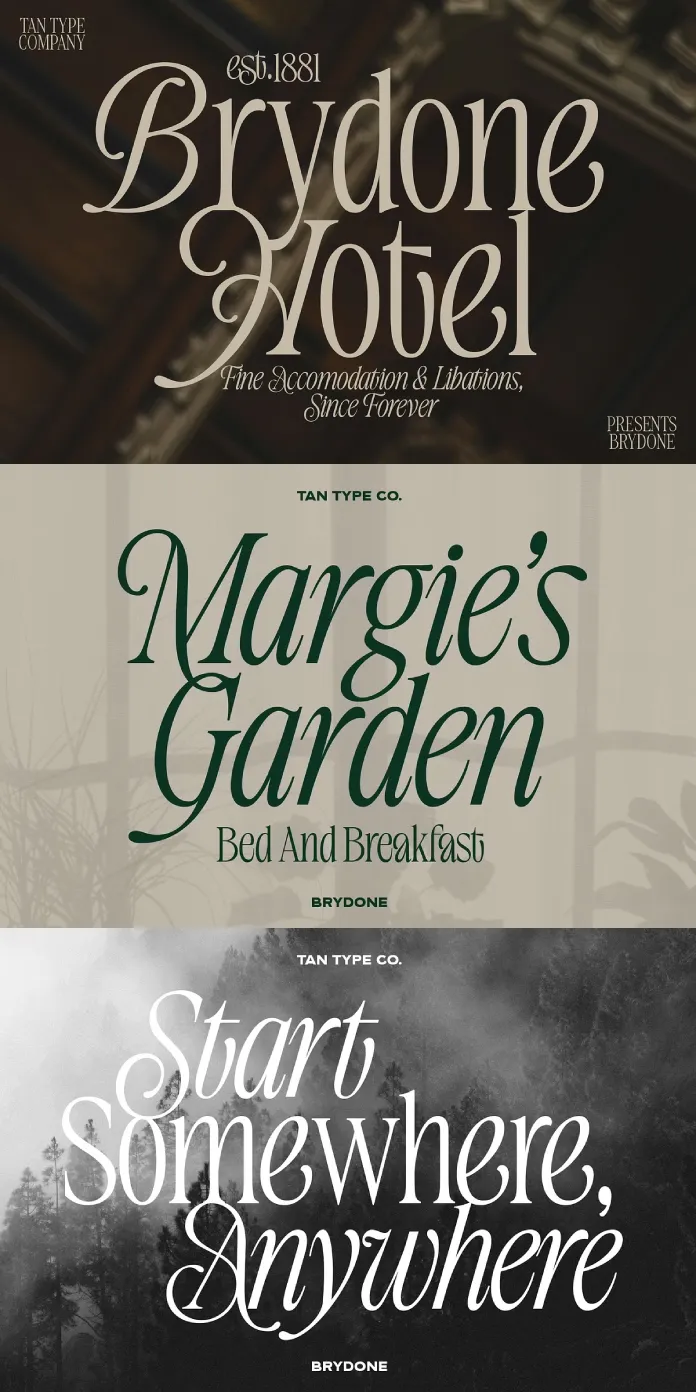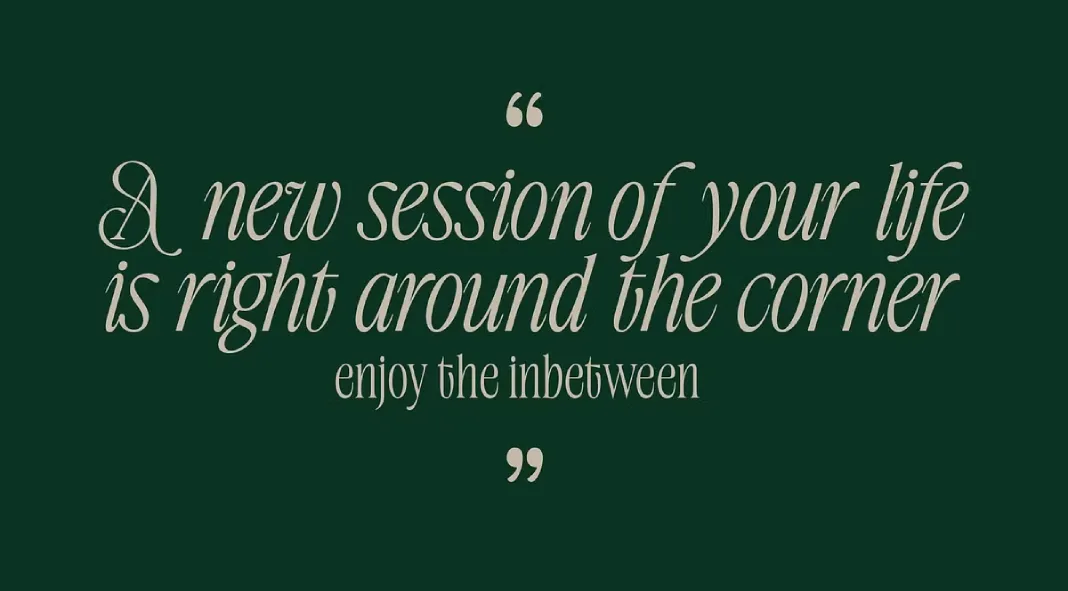
Brydone: The Serif Typeface That Redefines Charm and Elegance
When it comes to balancing timeless sophistication with modern appeal, the TAN Brydone font by TanType stands out. This well-designed serif typeface is a masterclass in blending tradition and contemporary design, delivering versatility and charm in equal measure.
A Typeface Rooted in Elegance
Brydone’s letterforms are steeped in classic serif traditions, but it avoid feeling outdated. The gently rounded edges soften its authoritative structure, giving it a welcoming and friendly vibe. It’s this juxtaposition of elegance and approachability that sets Brydone apart from other serif fonts.
Whether it’s used for branding, editorial design, or signage, Brydone’s aesthetic exudes reliability while maintaining a touch of warmth. The font communicates trust and professionalism, making it an ideal choice for hospitality brands, high-end product packaging, and heartfelt campaigns.
Perfect for Print and Digital
Brydone’s versatility knows no bounds. The typeface shines in both print and digital formats, adapting beautifully to varying sizes and applications. Its high contrast and legible forms make it ideal for headlines, subheadings, and body text alike.
In print, Brydone works wonders on brochures, wedding invitations, and book covers. Its rich character adds a layer of sophistication to tactile media. In digital design, it maintains clarity on screens, ensuring a seamless experience for web users.
Technical Details Matter
Moreover, Brydone’s carefully crafted glyphs offer consistency and refinement, making it a reliable choice for designers who seek precision in their work.
Where Brydone Truly Shines
Brydone thrives in projects where the tone demands a delicate balance of authority and friendliness. It’s the perfect font for:
- Luxury hotel branding
- Editorials that call for sophistication
- Boutique product packaging
- Cozy café menus and signage
- Inspirational quotes and typography art
Why Designers Will Love Brydone
The attention to detail in Brydone’s design is unmistakable. From its elegant curves to its subtle flair, every letterform feels intentional. It’s versatile enough to suit modern minimalist projects yet retains the depth needed for more intricate, expressive designs.
Designers will appreciate how effortlessly it pairs with sans-serif fonts, providing balance and contrast. Its adaptability allows for experimentation, making it a favorite among creative professionals.
To sum it up, Brydone by TanType is more than just a serif typeface; it’s a design asset that radiates timeless charm and modern grace. Its reliability and warmth make it a standout choice for a wide range of creative projects.
For designers looking to elevate their typography game, Brydone offers a perfect mix of sophistication and personality. It’s a font that doesn’t just communicate—it resonates.